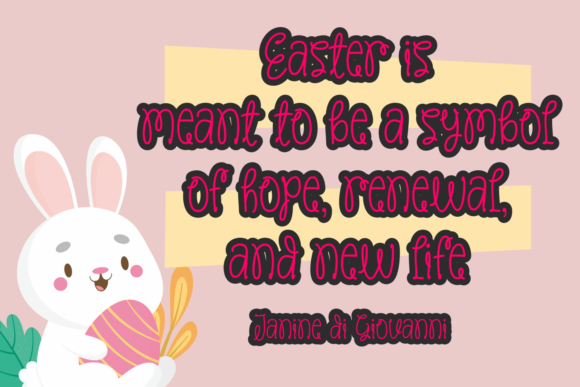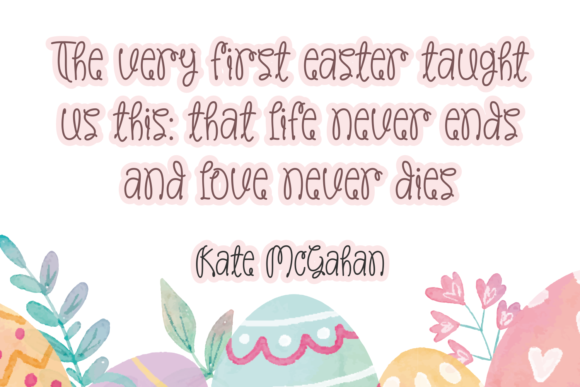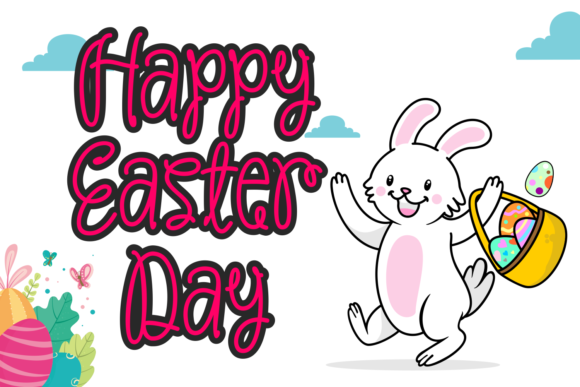
Introduction to Always Easter Font
Always Easter is a cute, whimsical and jolly handwritten font.
Its sweet and full of life style makes this font a wonderful choice for brightening up your designs .